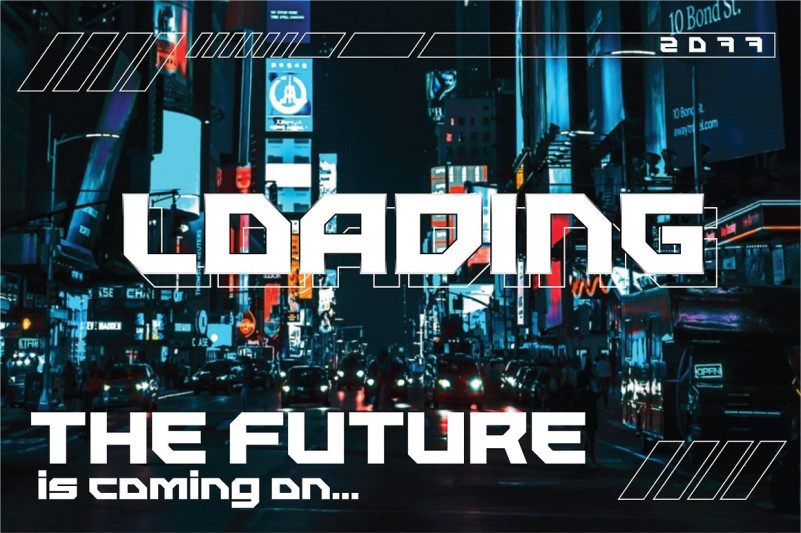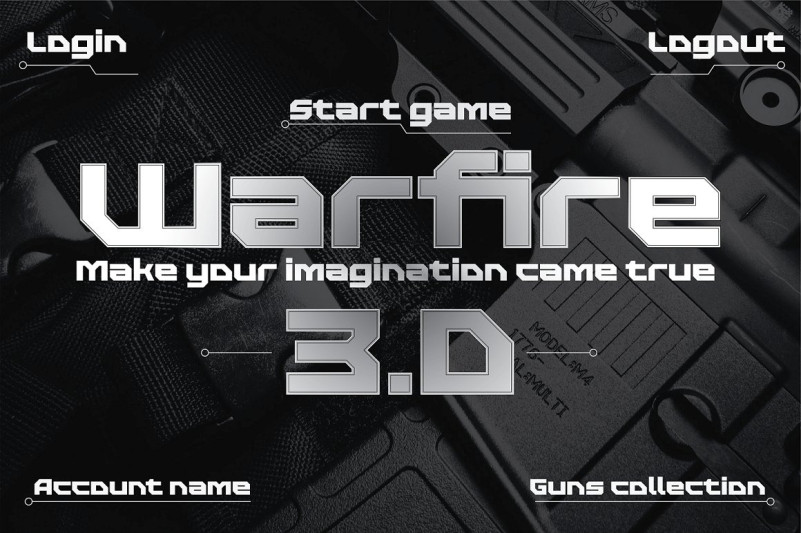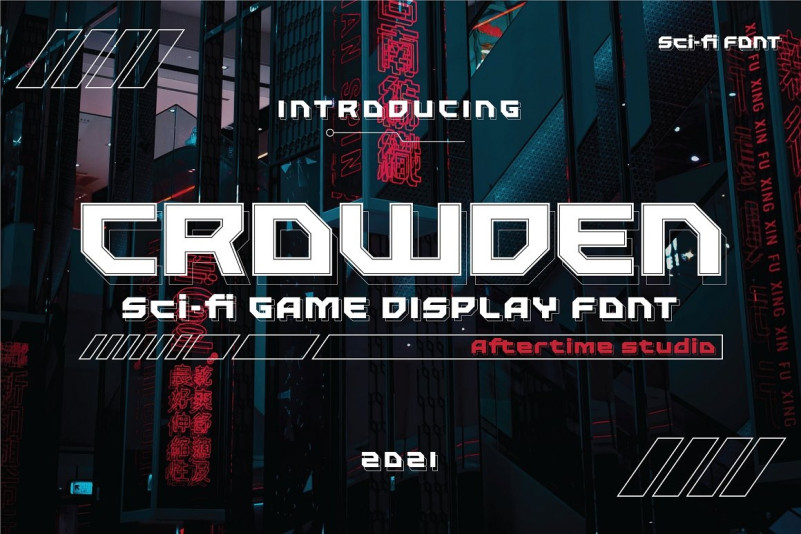
Crowden Font
Crowden Display Font is a cool, bold and futuristic display font. It works great on games, science projects, sporting events or pretty much anything that requires a high-tech vibe.